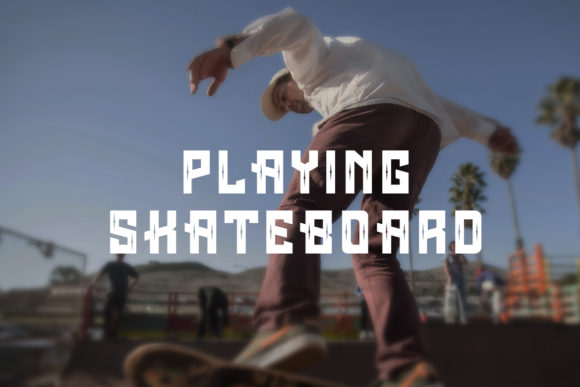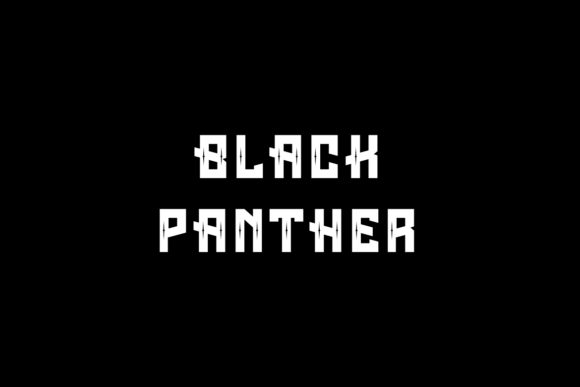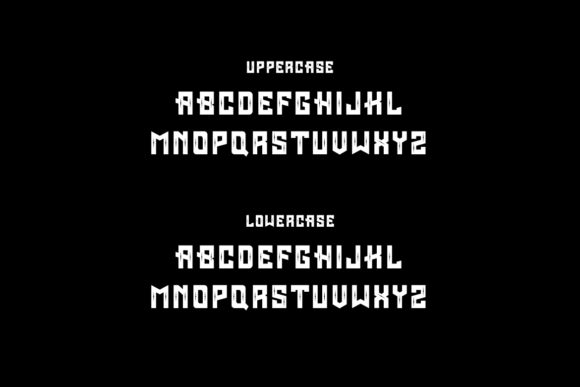
Unravel the Mystery of Enigma Font: A Bold and Versatile Display Font
Are you tired of using the same old fonts for your designs? Look no further than the Enigma Font, a bold and thick lettered display font that’s perfect for adding a unique touch to your web designs, business cards, and more. In this article, we’ll dive into the world of Enigma Font and explore its features, benefits, and uses.
What is Enigma Font?
Enigma Font is a bold and thick lettered display font that’s designed to make a statement. Its unique and eye-catching design makes it perfect for use in a variety of applications, from web designs and business cards to posters and flyers. With its bold and chunky letters, Enigma Font is sure to grab attention and leave a lasting impression.
Key Features of Enigma Font
- Bold and Thick Lettering: Enigma Font features bold and thick lettering that’s perfect for making a statement.
- Unique and Eye-Catching Design: The font’s unique design makes it stand out from the crowd and adds a touch of personality to any design.
- Versatile: Enigma Font can be used in a variety of applications, from web designs and business cards to posters and flyers.
- Easily Readable: Despite its bold and chunky design, Enigma Font is easily readable, making it perfect for use in headlines and titles.
Benefits of Using Enigma Font
So why should you use Enigma Font in your designs? Here are just a few benefits of using this versatile display font:
- Adds a Unique Touch: Enigma Font adds a unique touch to any design, setting it apart from the crowd.
- Grabs Attention: The font’s bold and chunky design grabs attention and leaves a lasting impression.
- Perfect for Headlines and Titles: Enigma Font is perfect for use in headlines and titles, adding a touch of personality and style.
- Easy to Read: Despite its bold design, Enigma Font is easily readable, making it perfect for use in a variety of applications.
Uses of Enigma Font
So what can you use Enigma Font for? The possibilities are endless! Here are a few ideas to get you started:
- Web Designs: Use Enigma Font to add a unique touch to your website’s headlines and titles.
- Business Cards: Add a touch of personality to your business cards with Enigma Font.
- Posters and Flyers: Use Enigma Font to grab attention and add a touch of style to your posters and flyers.
- Social Media Graphics: Add a touch of personality to your social media graphics with Enigma Font.
Tips for Using Enigma Font
Here are a few tips for using Enigma Font in your designs:
- Use it Sparingly: Enigma Font is bold and attention-grabbing, so use it sparingly to avoid overwhelming your design.
- Pair it with a Simple Font: Pair Enigma Font with a simple font to create a striking contrast.
In conclusion, Enigma Font is a bold and versatile display font that’s perfect for adding a unique touch to your designs. With its bold and chunky lettering, unique design, and easily readable style, Enigma Font is sure to grab attention and leave a lasting impression. Whether you’re a designer, crafter, or DIY enthusiast, Enigma Font is a must-have in your font collection.